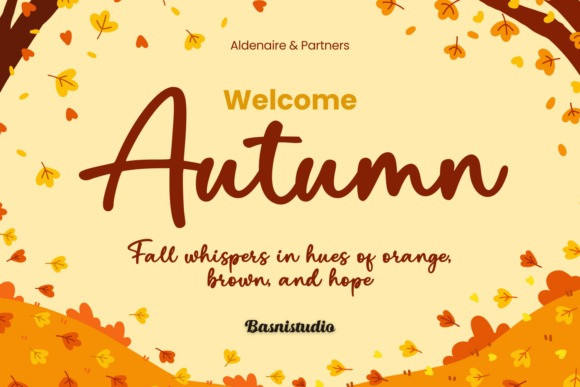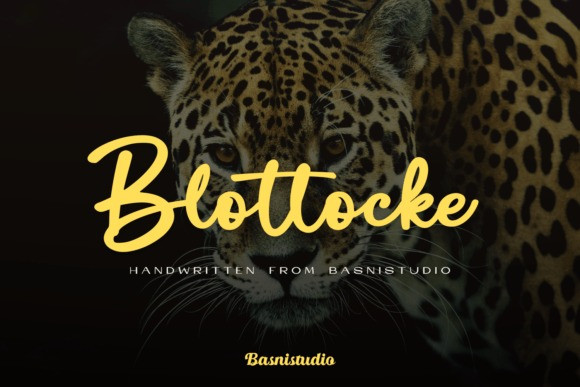
Blottocke Font
Blottocke Font is a bold, confident handwritten script font that features smooth, thick strokes and an energetic, natural flow, making it friendly yet commanding.
The typeface is characterized by its clean, heavy letterforms and slightly elongated connections, giving it the genuine look of quick, authentic brush-pen lettering with a modern, approachable twist.
The Blottocke font is an excellent choice for branding that needs a strong, personal voice, such as lifestyle blogs, food packaging, motivational posters, and distinctive apparel designs. Its high visual weight ensures it pops off the page, making the Blottocke typeface a superior choice for headers.
Use this bold handwritten font to achieve an unmistakably smooth, assertive, and memorable signature style in your creative work.